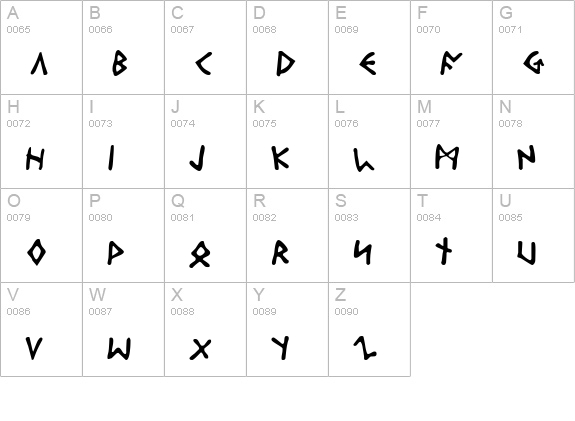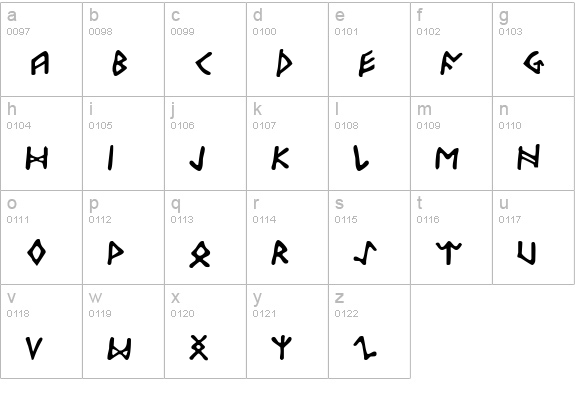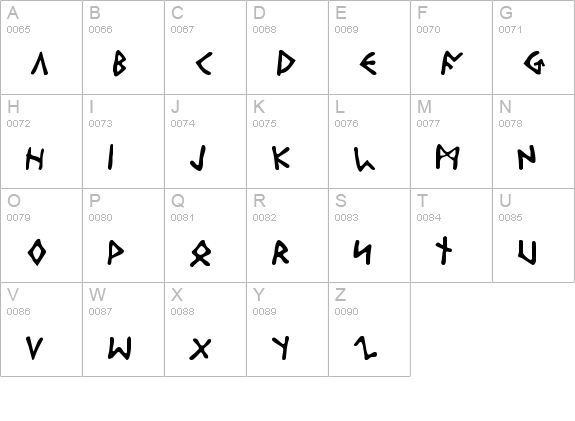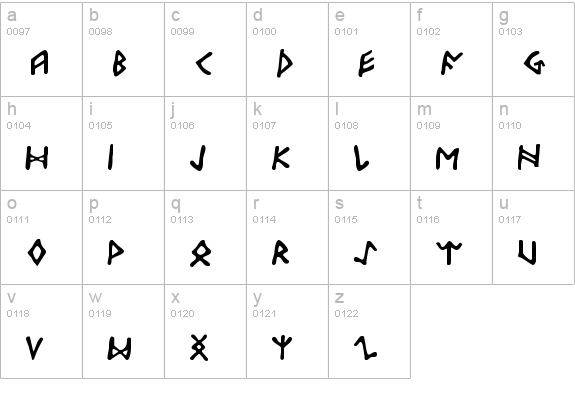
Odinson Font Details
Odinson font is a bold and modern typeface that exudes strength and power. With its clean lines and sharp edges, this font is perfect for making a bold statement in your designs. Whether you're creating a logo, poster, or branding materials, Odinson font will command attention and leave a lasting impression. The best part? Odinson font is completely free to download at FontsMarket.com. This means you can easily incorporate this striking font into your projects without any cost. Don't miss out on the opportunity to elevate your designs with the impactful Odinson font – download it today and unleash your creativity!